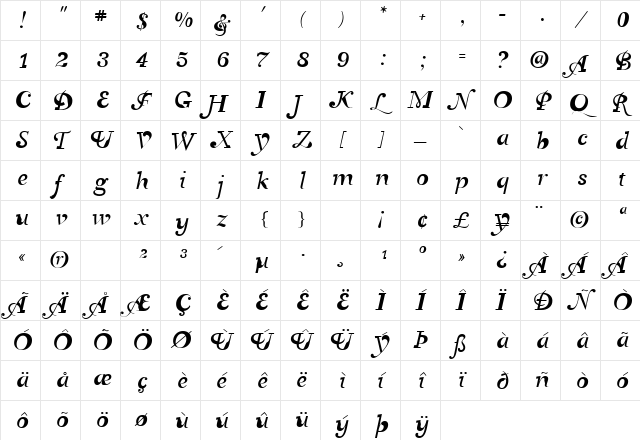
CanadianPhotographer Script
Design Context for CanadianPhotographer Typeface
CanadianPhotographer flows with the natural rhythm of handwritten lettering, making it ideal for designs that call for warmth and personal expression.
Font Pairing: Combine CanadianPhotographer with a simple geometric sans for maximum contrast — the tension between flowing curves and clean structure is a classic typographic pairing.
Pro Tip: Pair CanadianPhotographer with a clean sans-serif for supporting text. The contrast between fluid script and geometric structure creates an elegant typographic hierarchy.